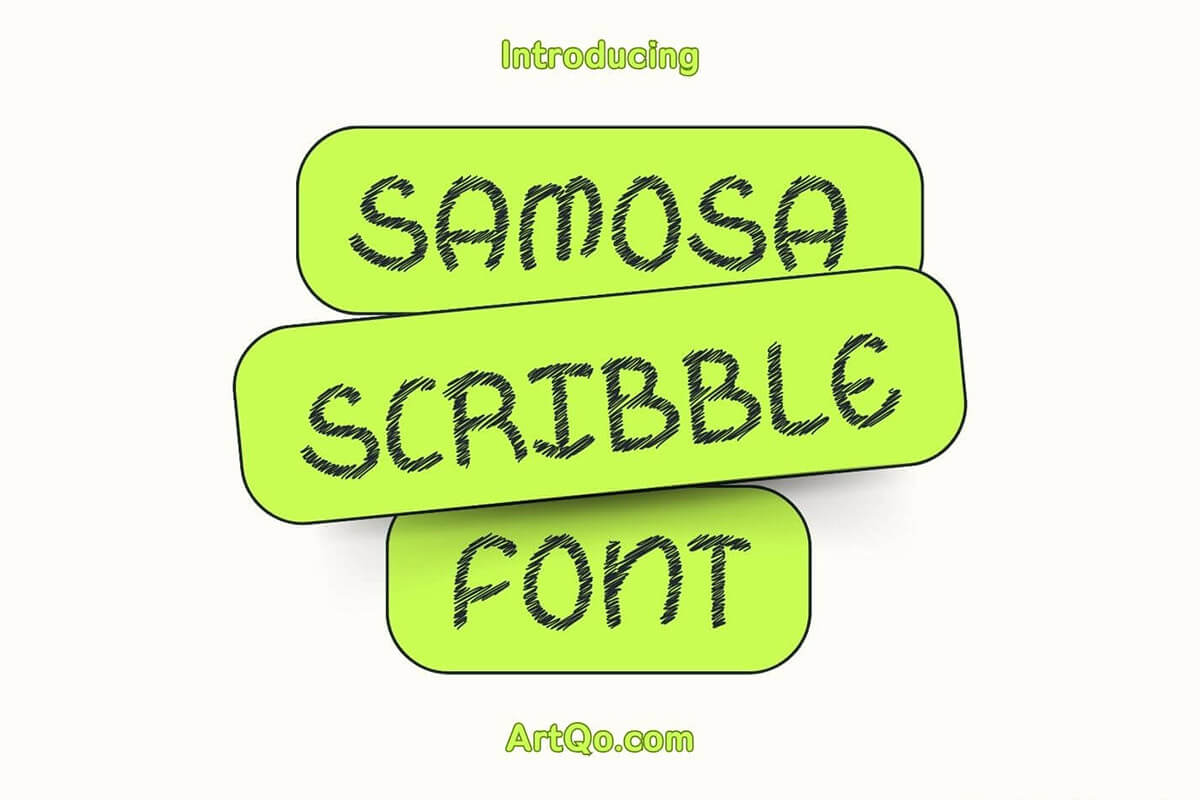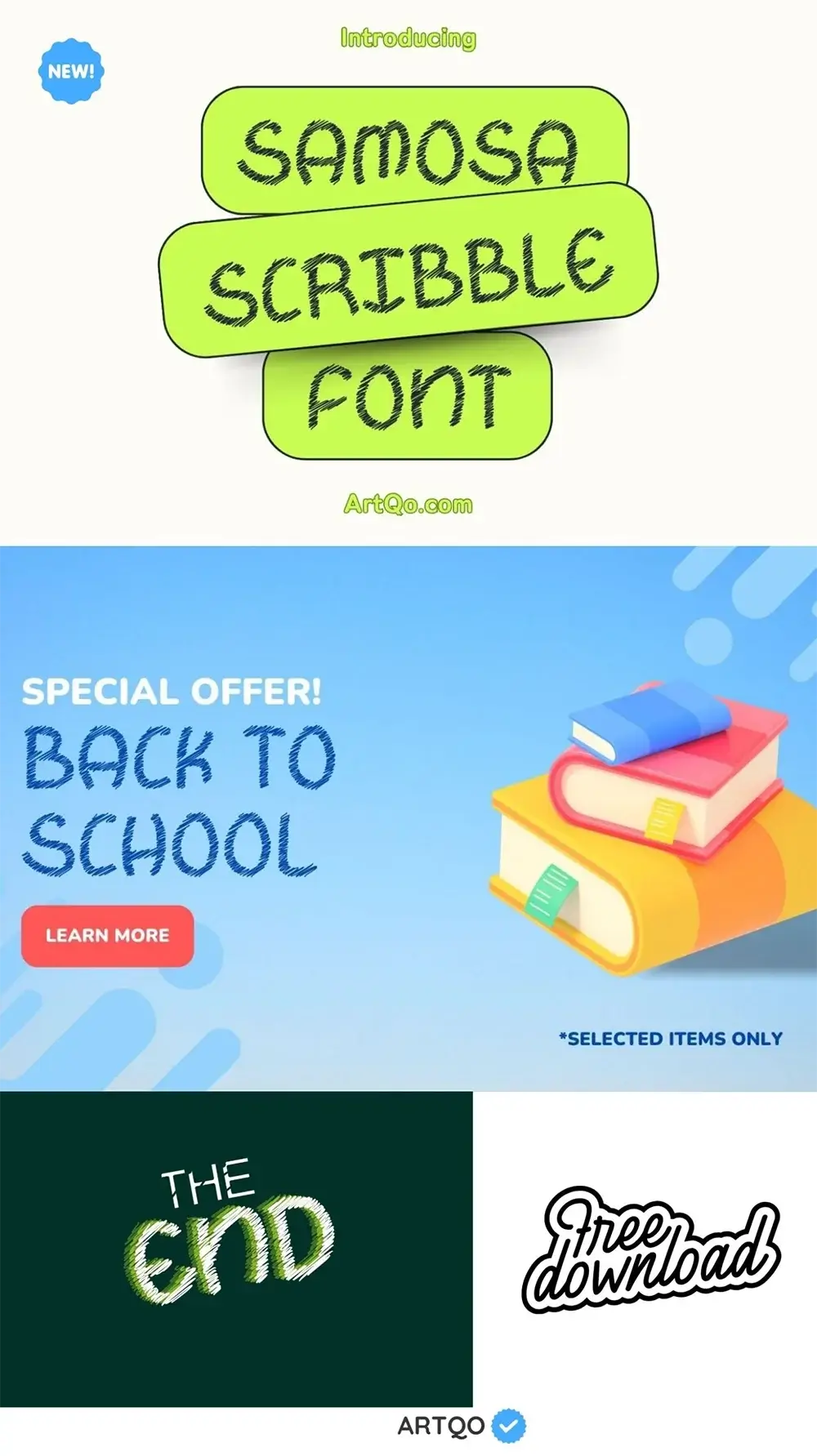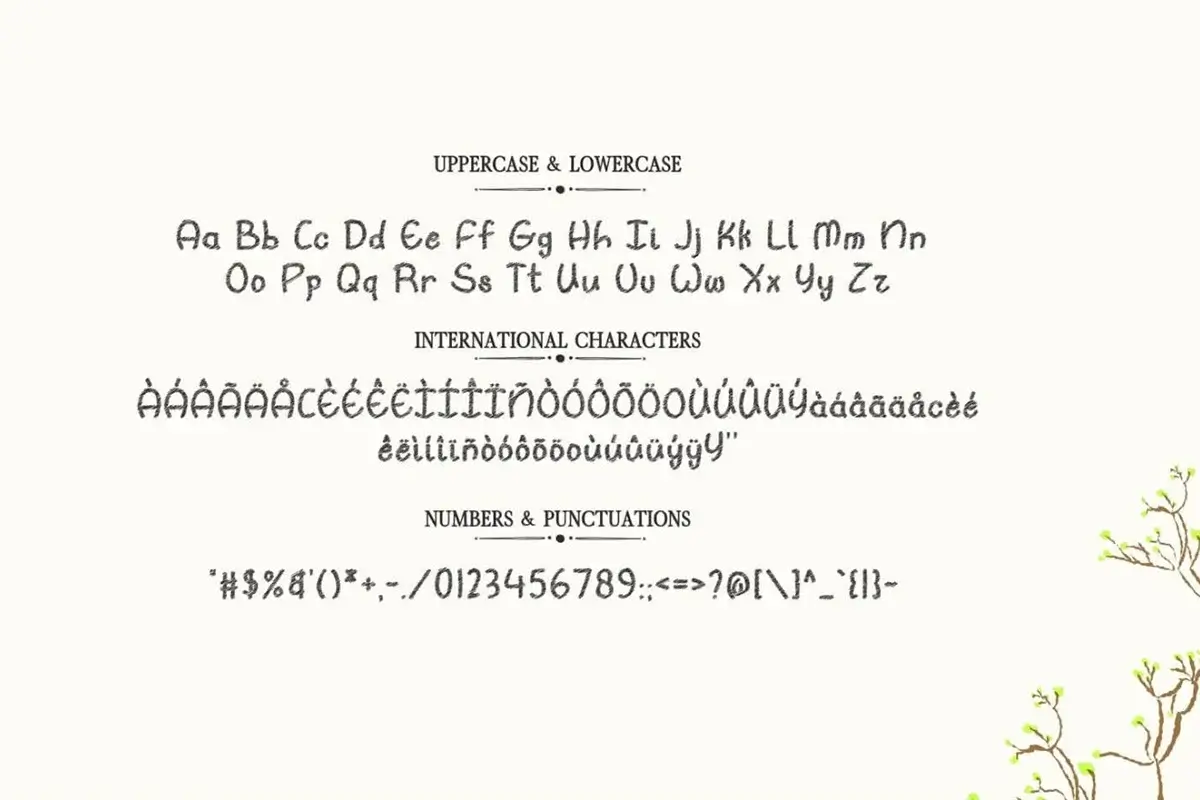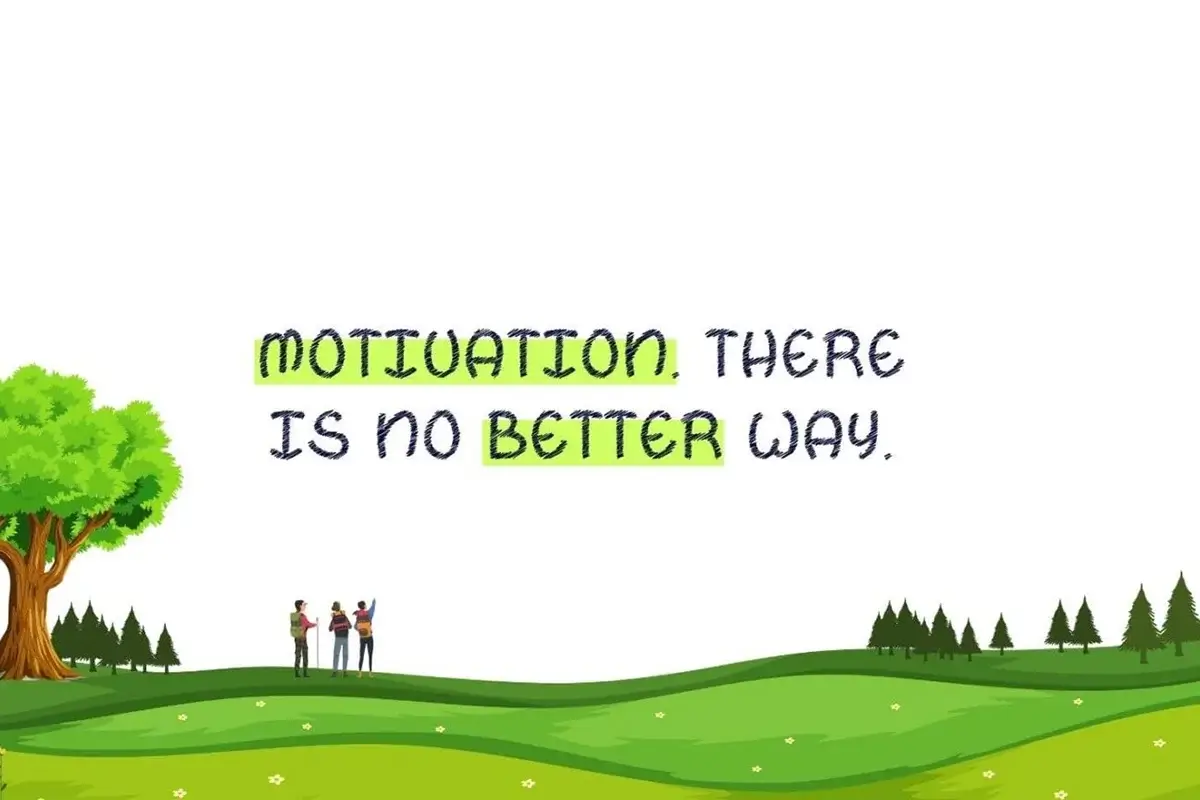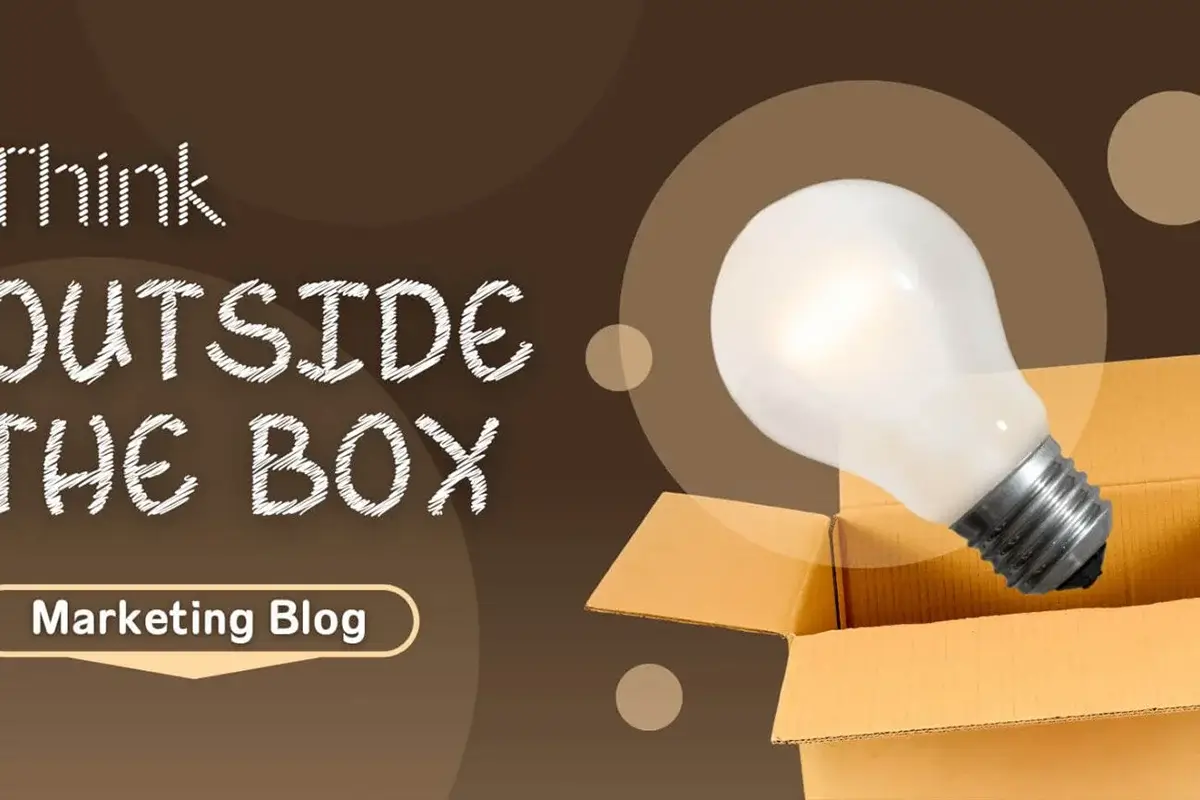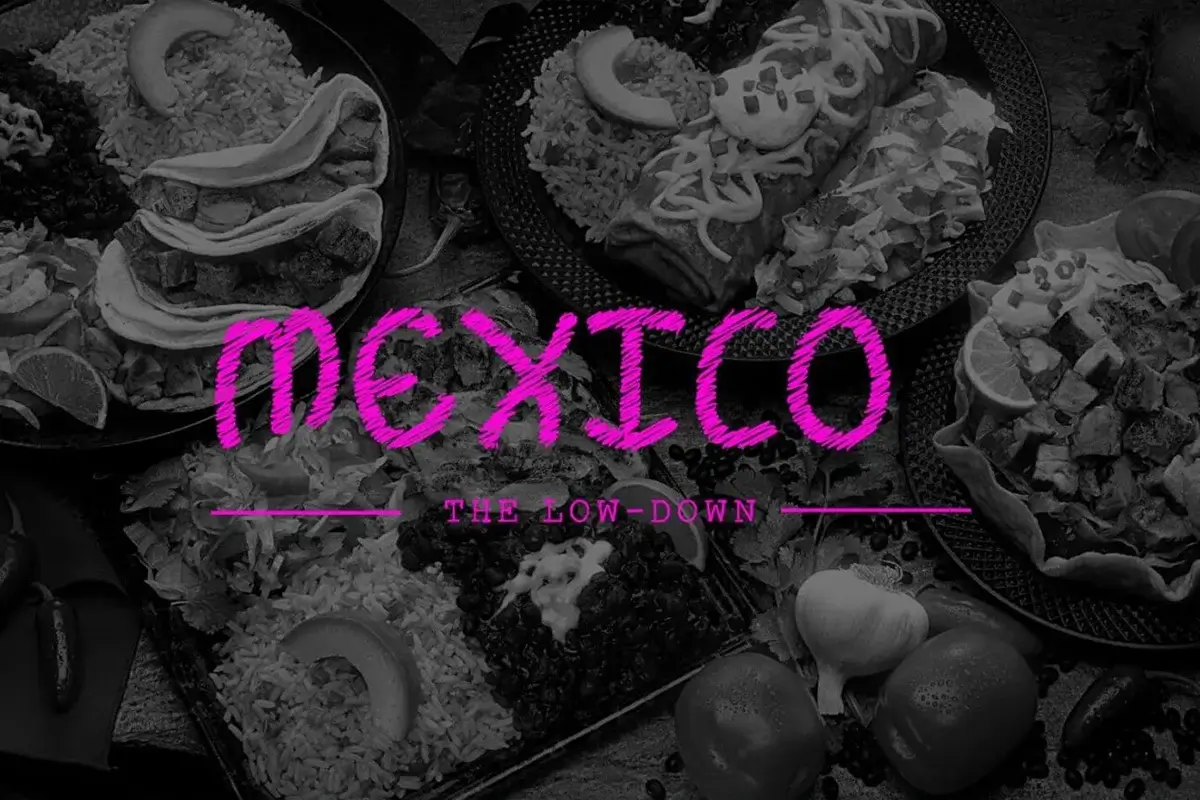
Samosa Scribble Font
Samosa Scribble Font is a fun and creative font with a playful, hand-drawn look. It’s perfect for projects that need a friendly, casual feel. The uneven, scribble-like strokes give it a unique and relaxed style, making it great for various designs.
This font is easy to read, even with its artistic scribble effect. You can use it for many things like posters, social media graphics, school projects, or even ads for fun events. Whether you are designing for kids or adults, this font adds a fun, handmade look to any project.
Key Features:
• Playful Hand-drawn Look: It feels personal and casual with its scribble-like style.
• Uppercase & Lowercase Letters: Comes with all standard letters to meet different design needs.
• International Characters: Supports multiple languages with accented characters.
• Numbers & Punctuation: Includes all the necessary numbers and symbols for complete design freedom.
• Easy to Read: Despite its scribble effect, it’s clear and legible.
Use Cases:
1. Posters & Flyers: Perfect for playful and eye-catching posters for events or promotions.
2. Social Media Graphics: Add a personal, creative touch to your Instagram or Facebook posts.
3. Kids’ Projects: Great for school projects, crafts, and activities that require a fun, handwritten look.
4. Advertising: Use it for cheerful ads like back-to-school promotions or special offers.
5. Personal Branding: If you want a casual, approachable feel for your brand, this font fits perfectly.